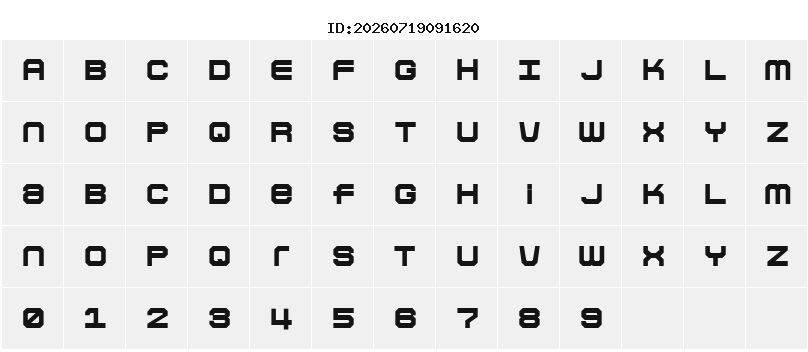
• Font Name: Colony
• Designer: Guillaume-Ulrich Chifflot
• Manufacturer: Guillaume-Ulrich Chifflot / Number Nine
About Colony.ttf
Colony.ttf is a modern, elegant sans-serif font designed for ultimate readability and visual harmony. Perfect for branding, headlines, web design, and print materials.